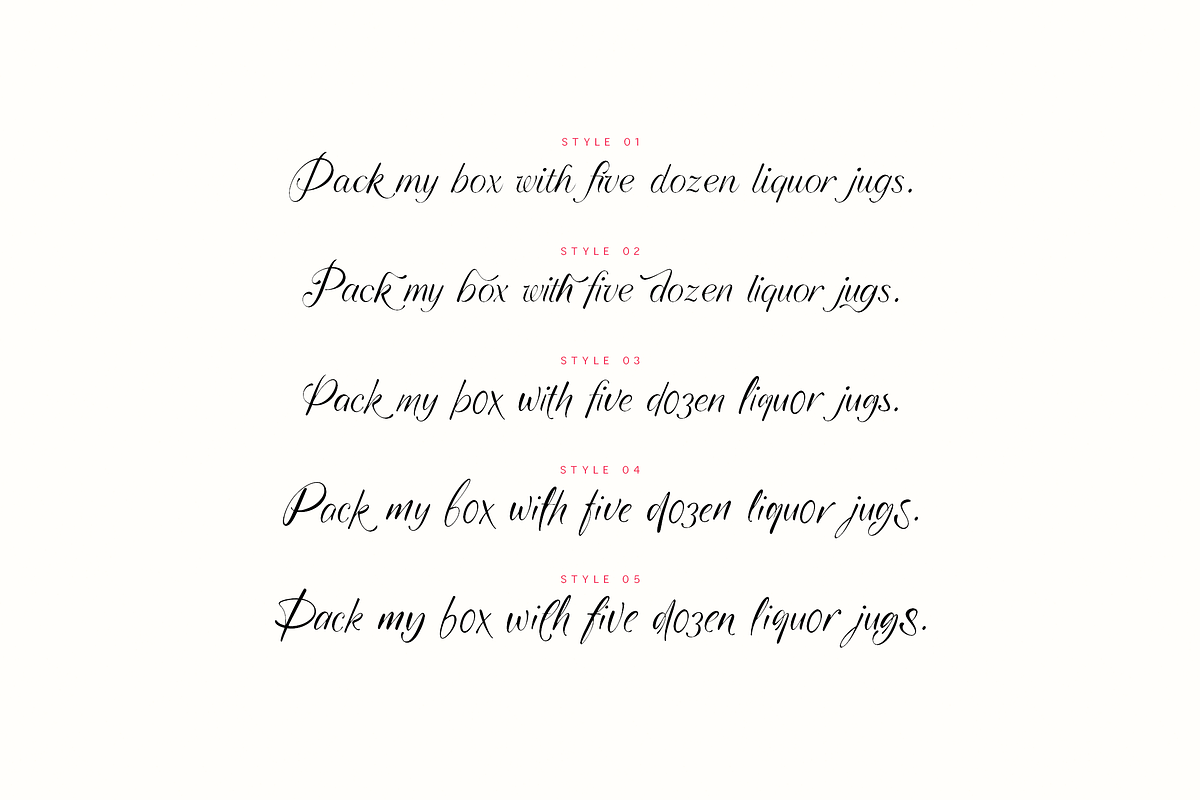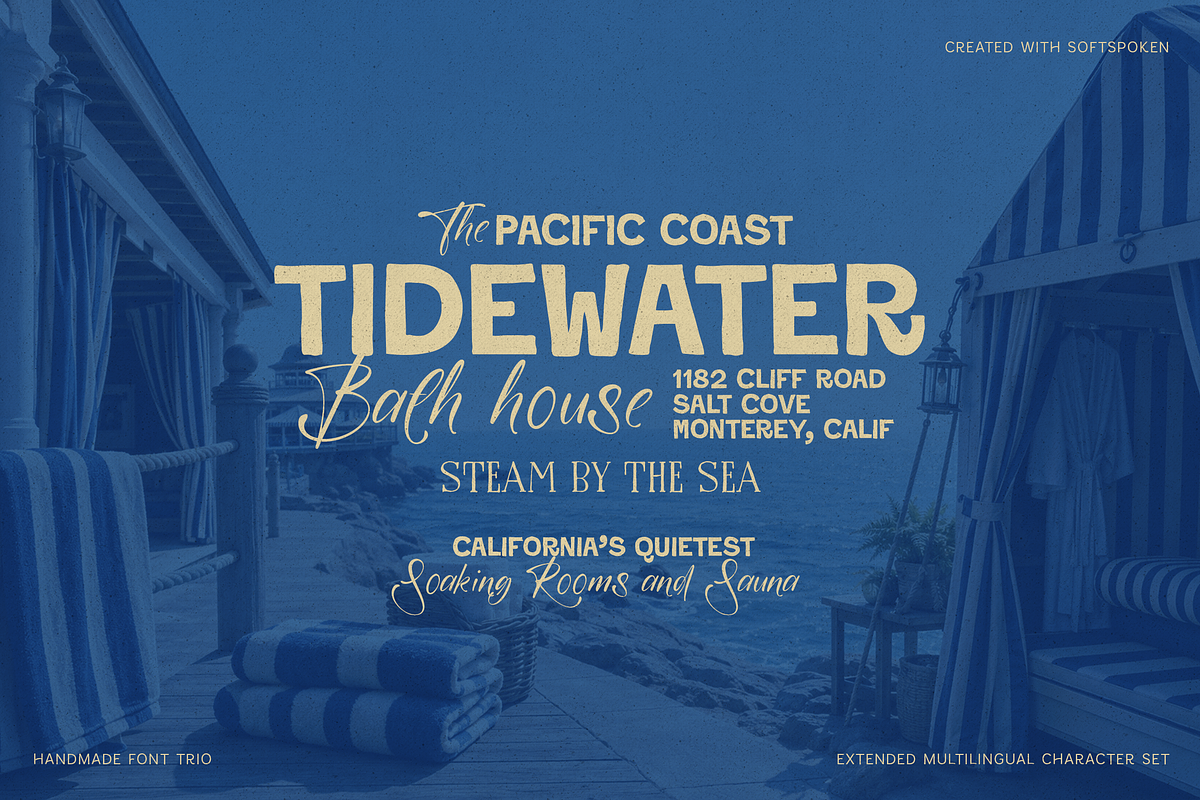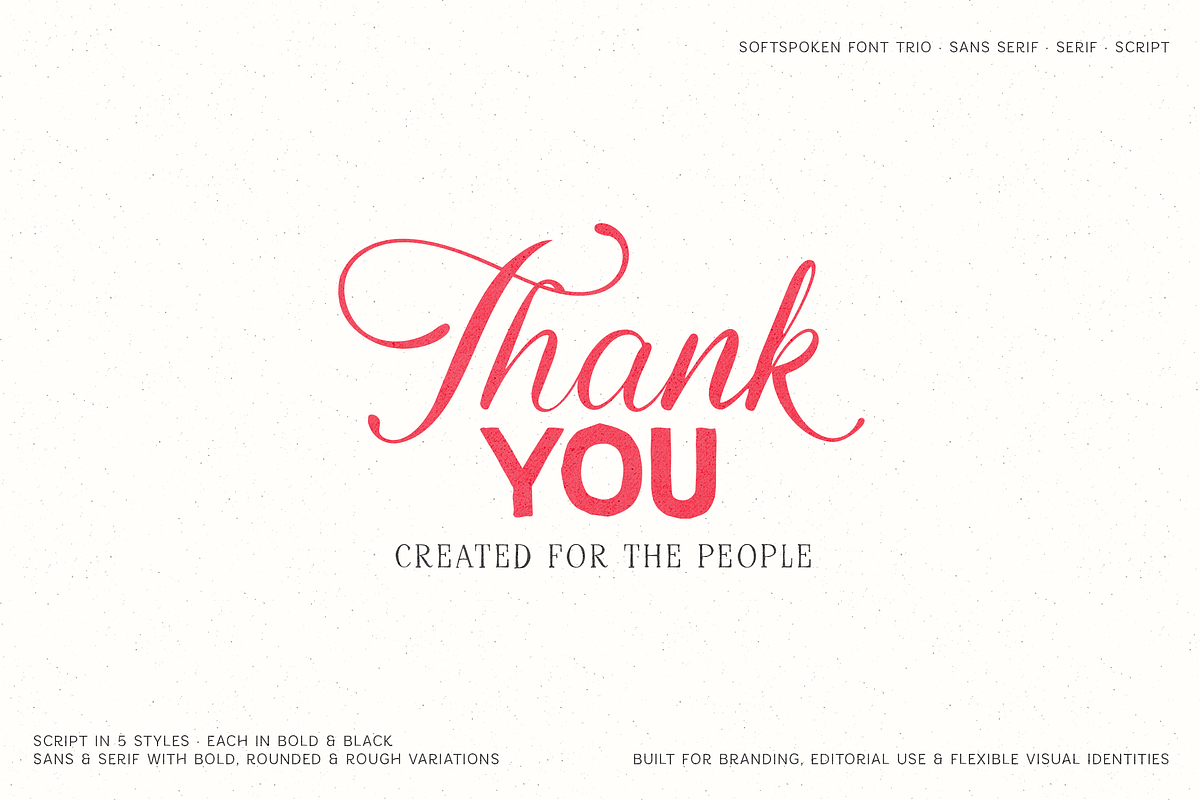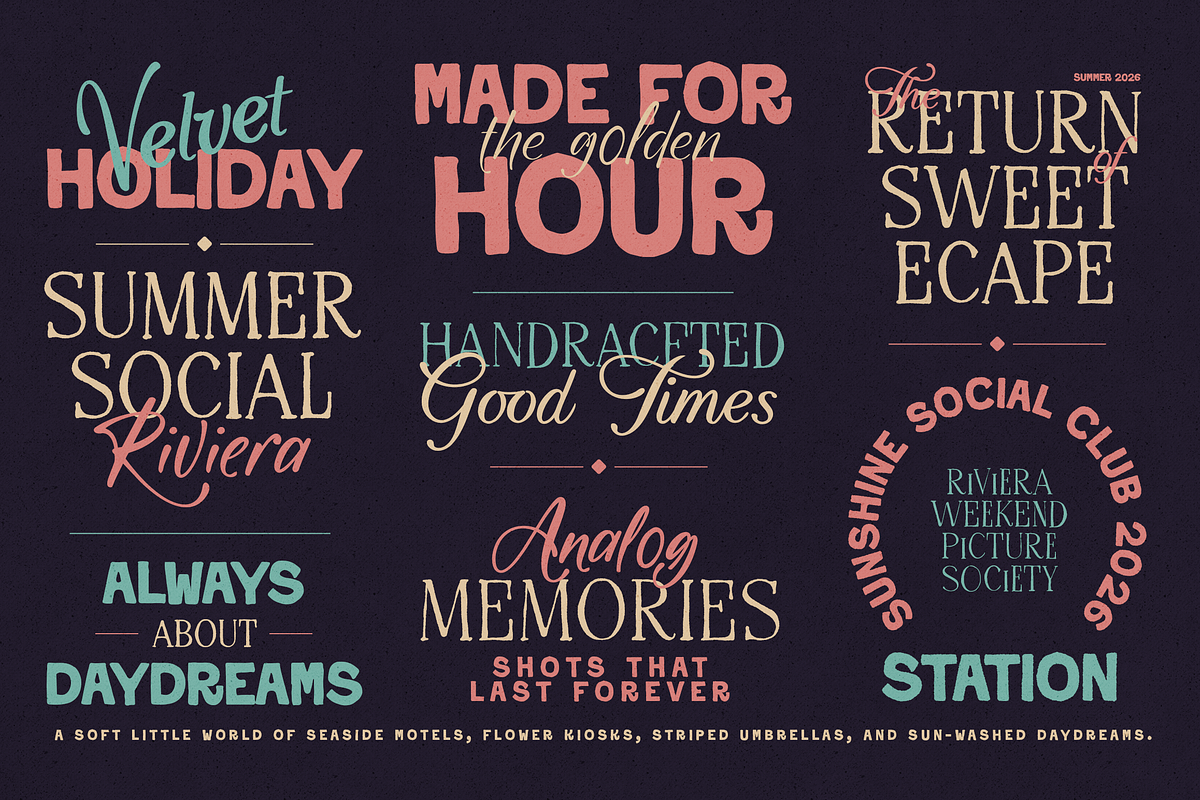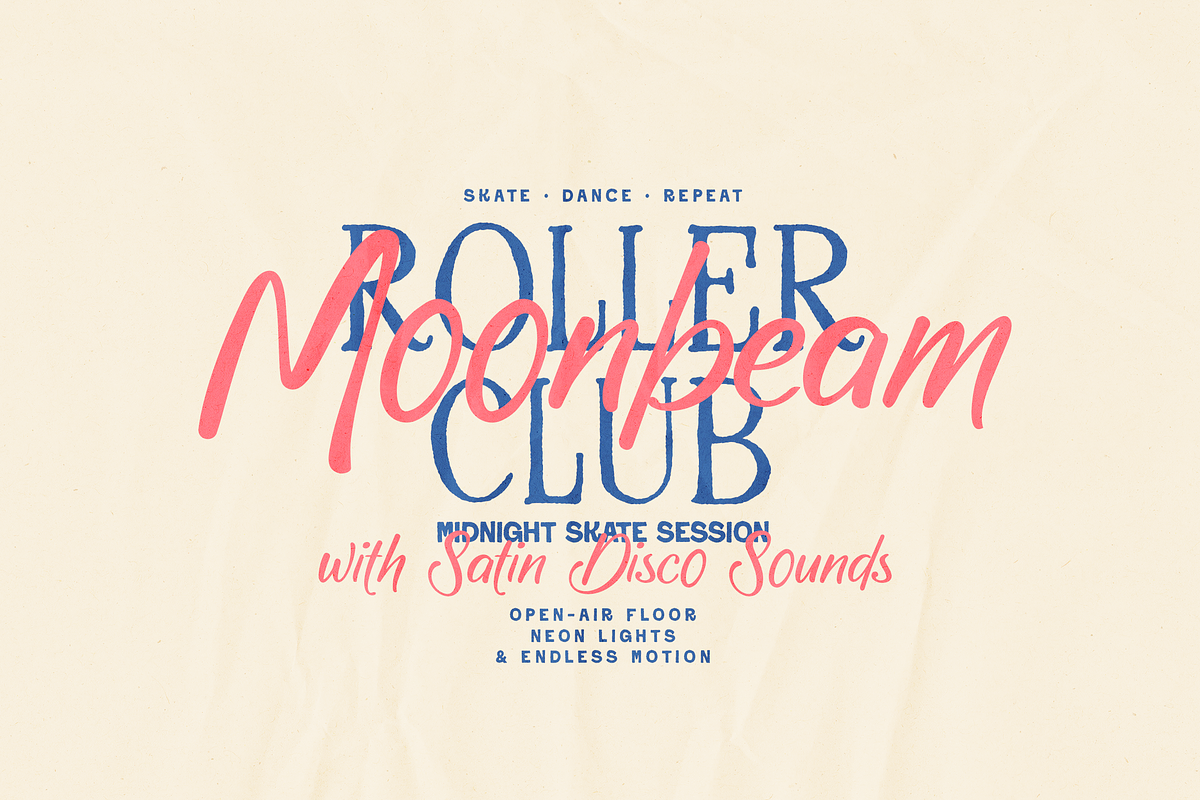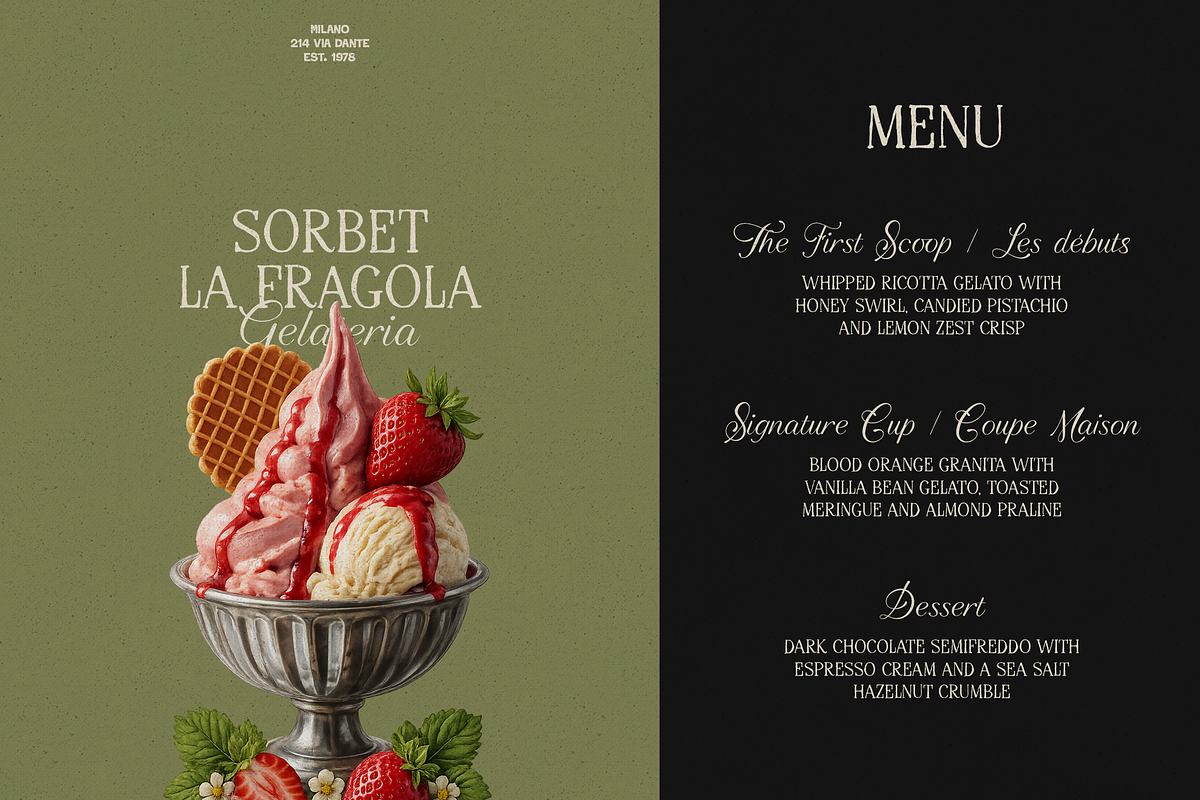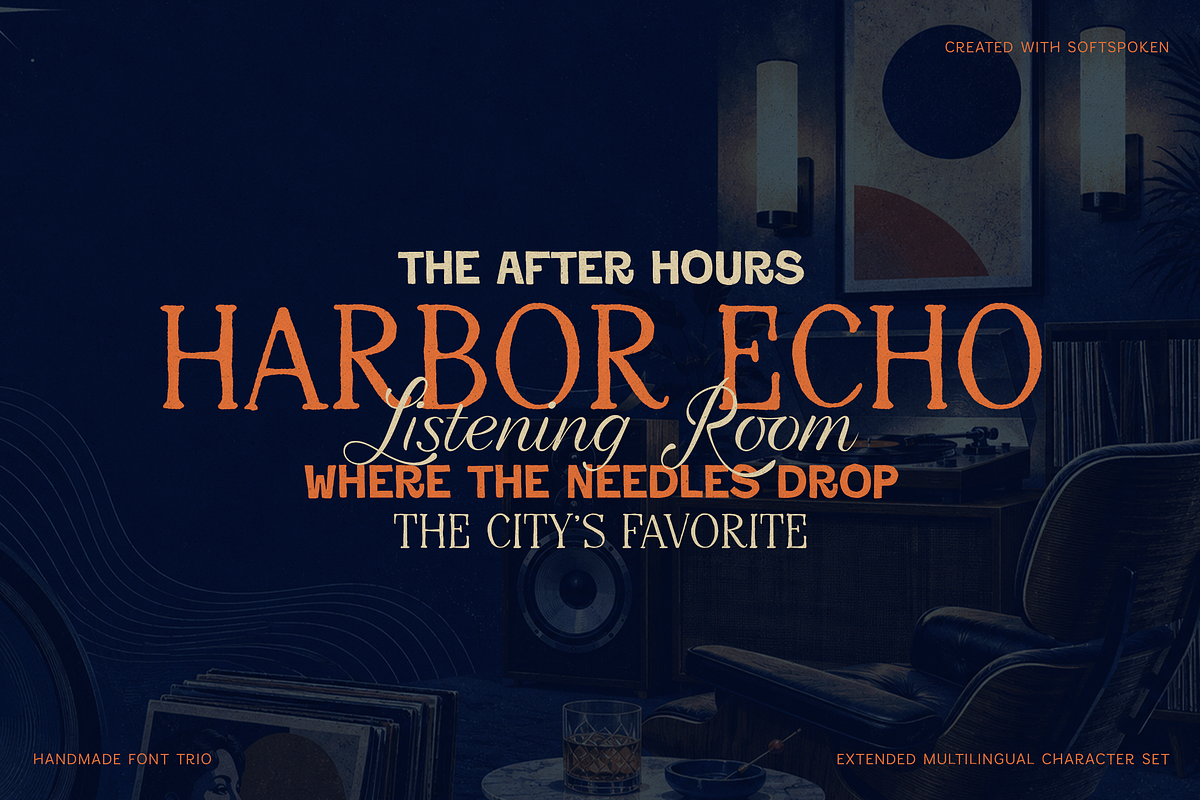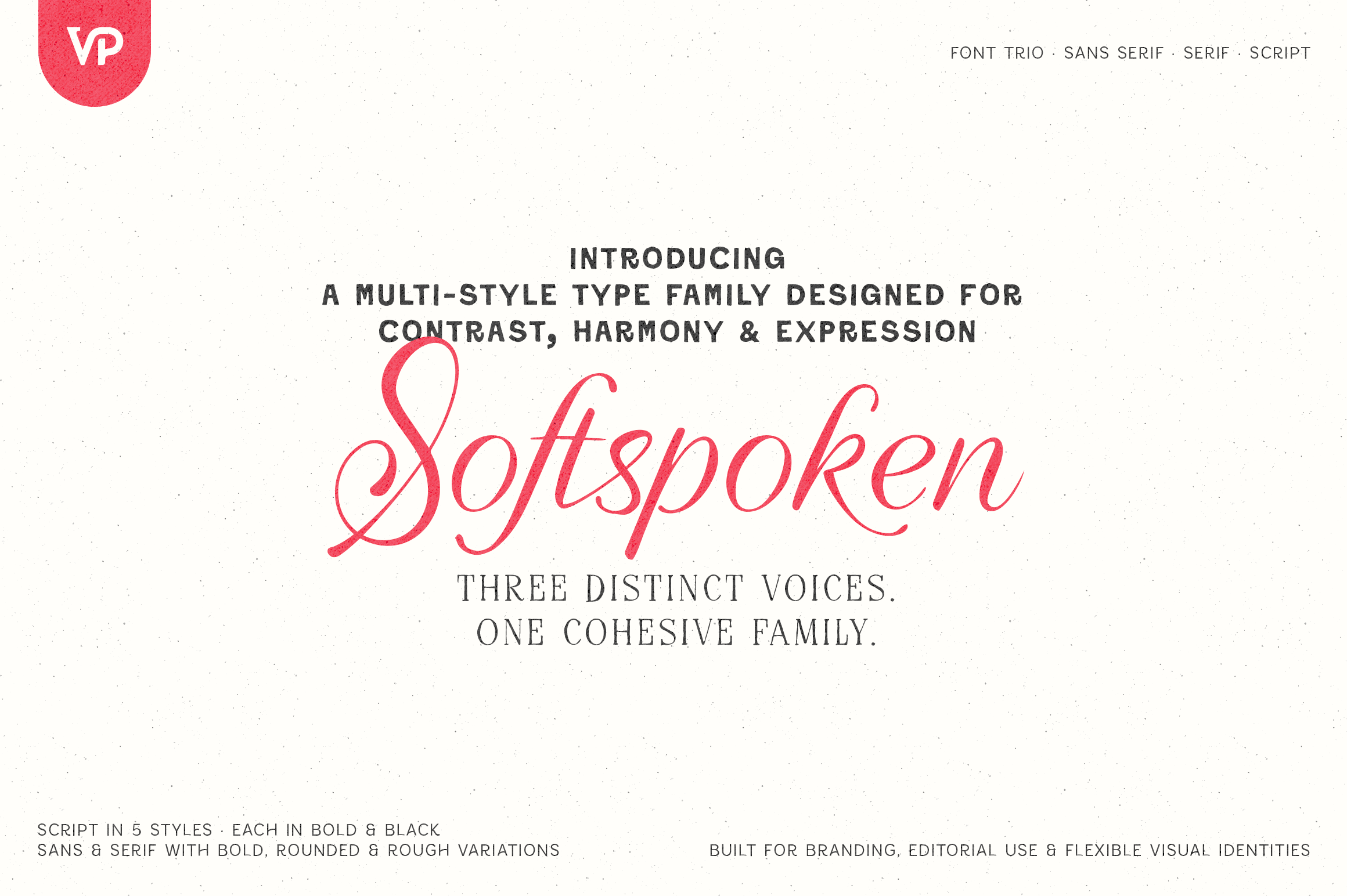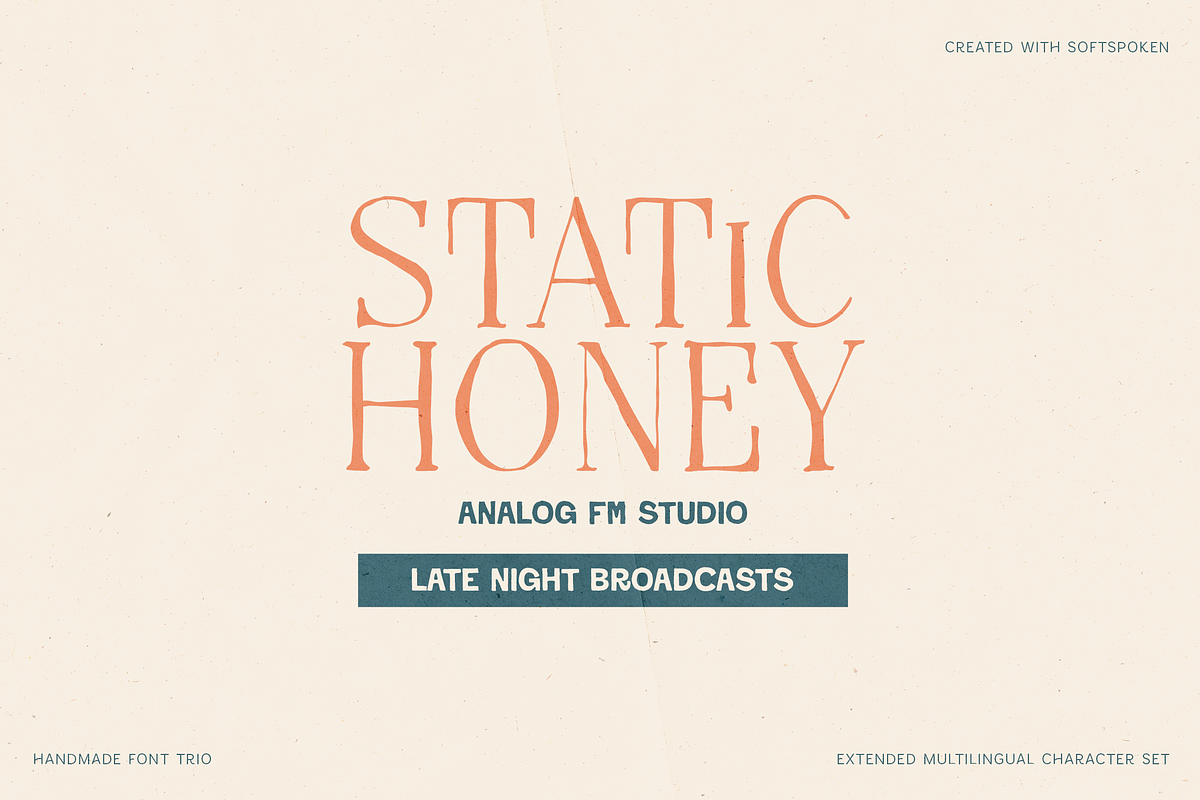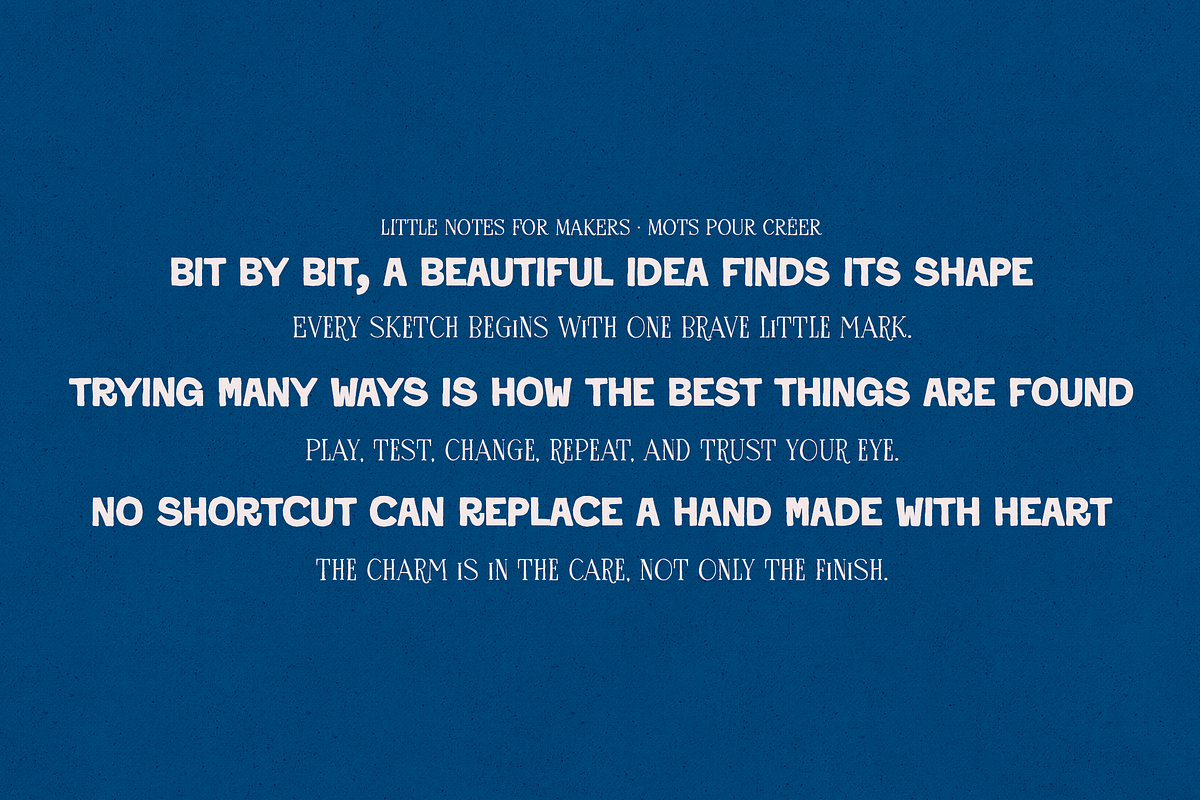
Softspoken Serif, Sans, Script Fonts
Softspoken is a versatile serif, sans serif and script font trio created for branding, logos, packaging, editorial design, invitations, social media and memorable display typography.
The script family includes five distinctive styles, with every style available in Regular, Bold and Black. The coordinated serif and sans serif families include Regular, Bold, Rounded and Rough variations, giving you everything from refined elegance to playful handmade character.
Designed to work beautifully together or independently, Softspoken makes it easy to build cohesive visual identities with contrast and personality. Combine the clean sans serif, expressive serif and flowing script for logos, product packaging, posters, magazines, wedding stationery, restaurant branding, quotes and creative campaigns.
Softspoken also includes an extended multilingual character set, numerals, punctuation, symbols and expressive stylistic details for flexible professional use.
Perfect for
Brand identities, logo design, packaging, editorial layouts, wedding invitations, restaurant menus, beauty brands, fashion projects, posters, social media, stationery and product labels.